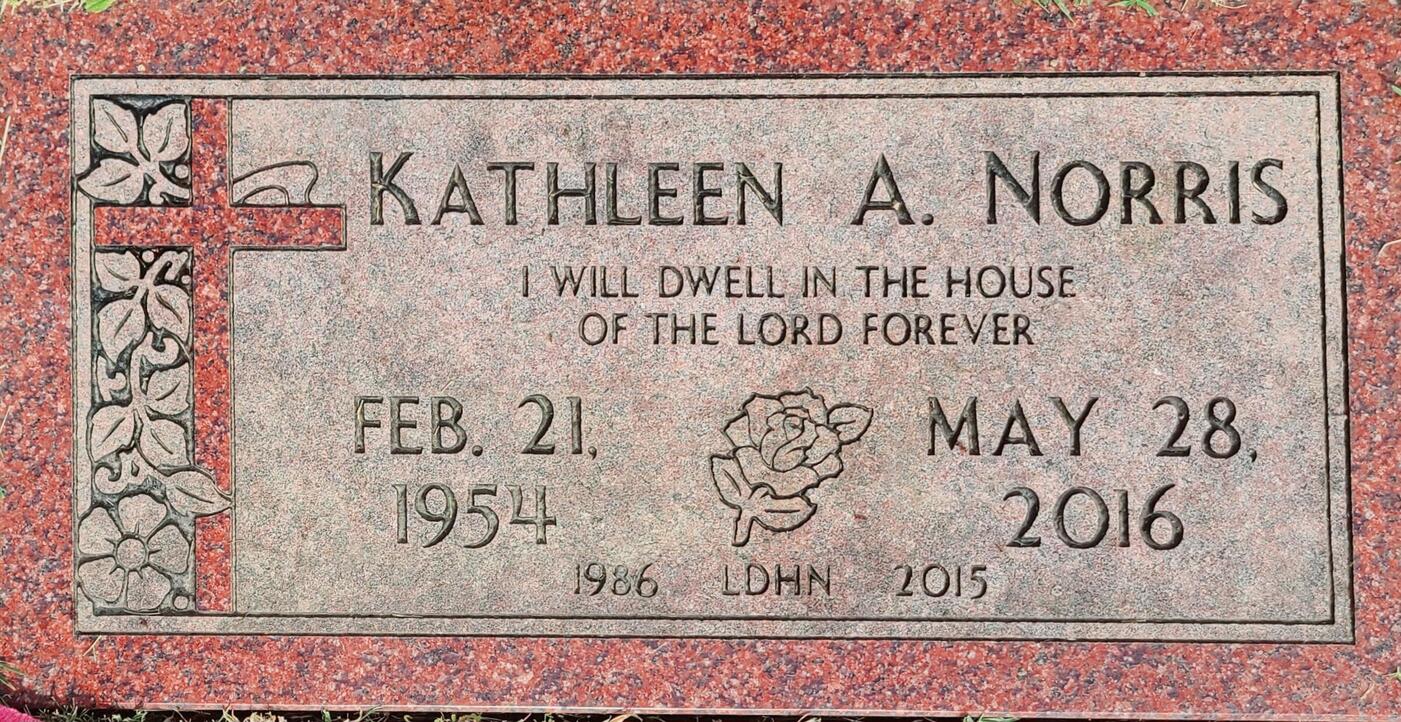
Identify the font on this headstone, please
This is the name engraved on my wife's headstone. I can't seem to identify the font, thought it is similar to Spacerite Modified Roman or ScotchKut Modified Roman. The shape of the legs of the letters "K" and "R" is unique, and I can't locate it.
Mythica, by K-Type, says it is derived from gravestone lettering—it is the closest digital match I can find.
I’m sure it has a different name in the monument world, but I didn’t find it on the Monument Letter Center website. The site does have a forum where you can post ID requests—you might want to post a request there.
EDIT: It is Coldspring Granite’s Runestone, per this post on the Monument Lettering Center forum.